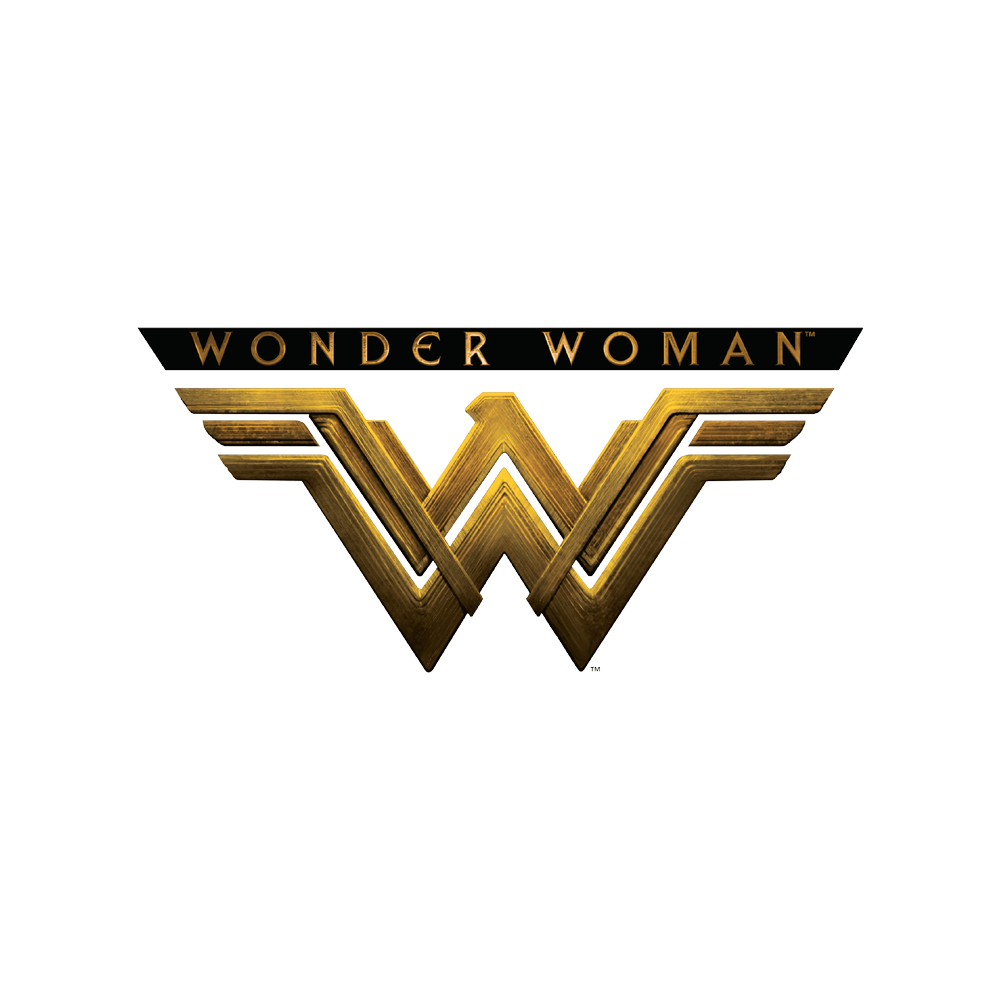
Wonder Woman Font
ActionWonder Woman is a 2017 movie based on the same named DC Comics character produced by Warner Bros. It was directed by Patty Jenkins and stars Gal Gadot as Diana, Princess of the Amazons, a powerful warrior who leaves her home on the hidden island of Themyscira to fight in World War I.
Wonder Woman's final official poster uses Raleway, a sophisticated sans-serif headline font created by Matt McInerney. Raleway is licensed under the SIL Open Font License. For the official movie trailer, the font used is very much like Liberty, designed by Andrew Newton as an all-capital inscribed serif font.